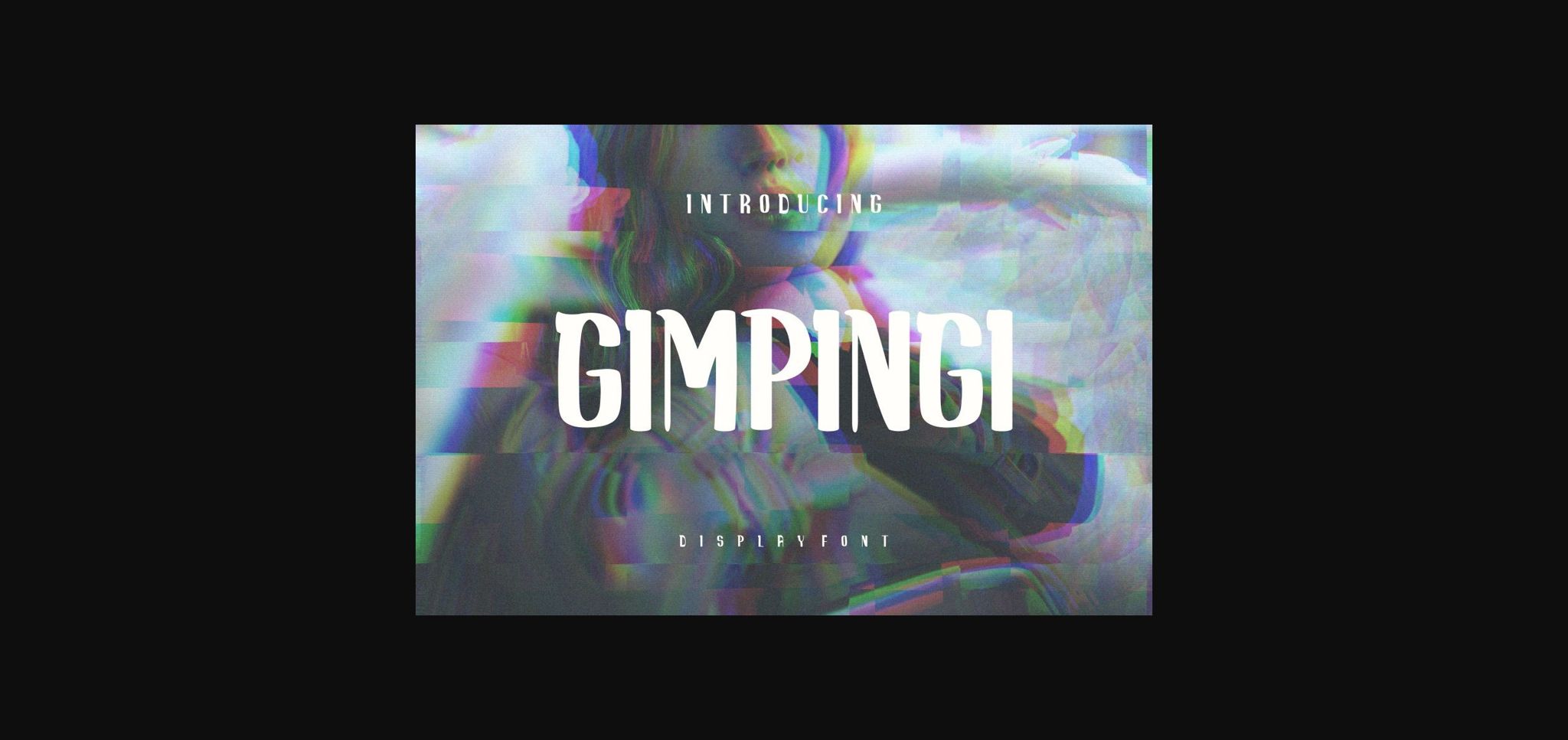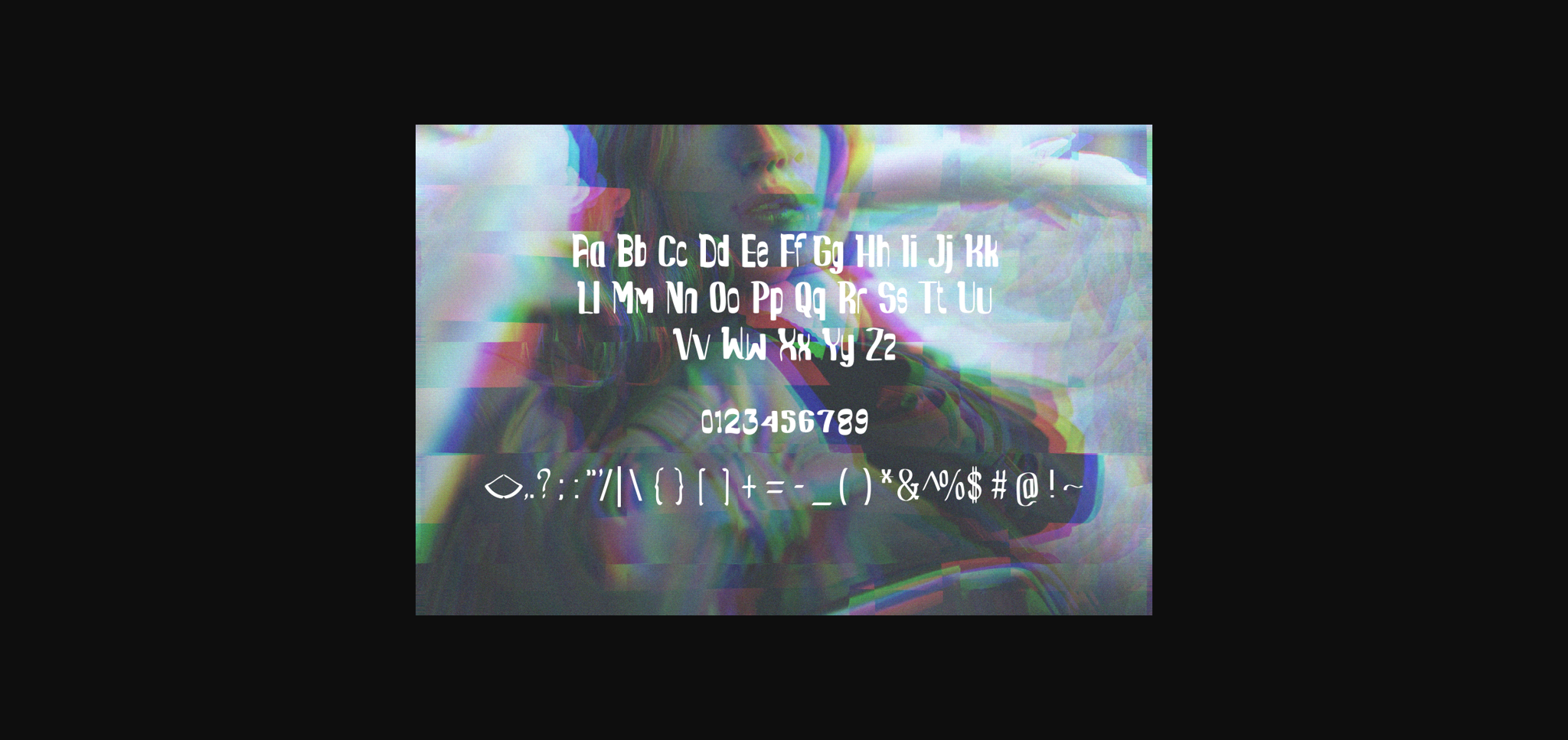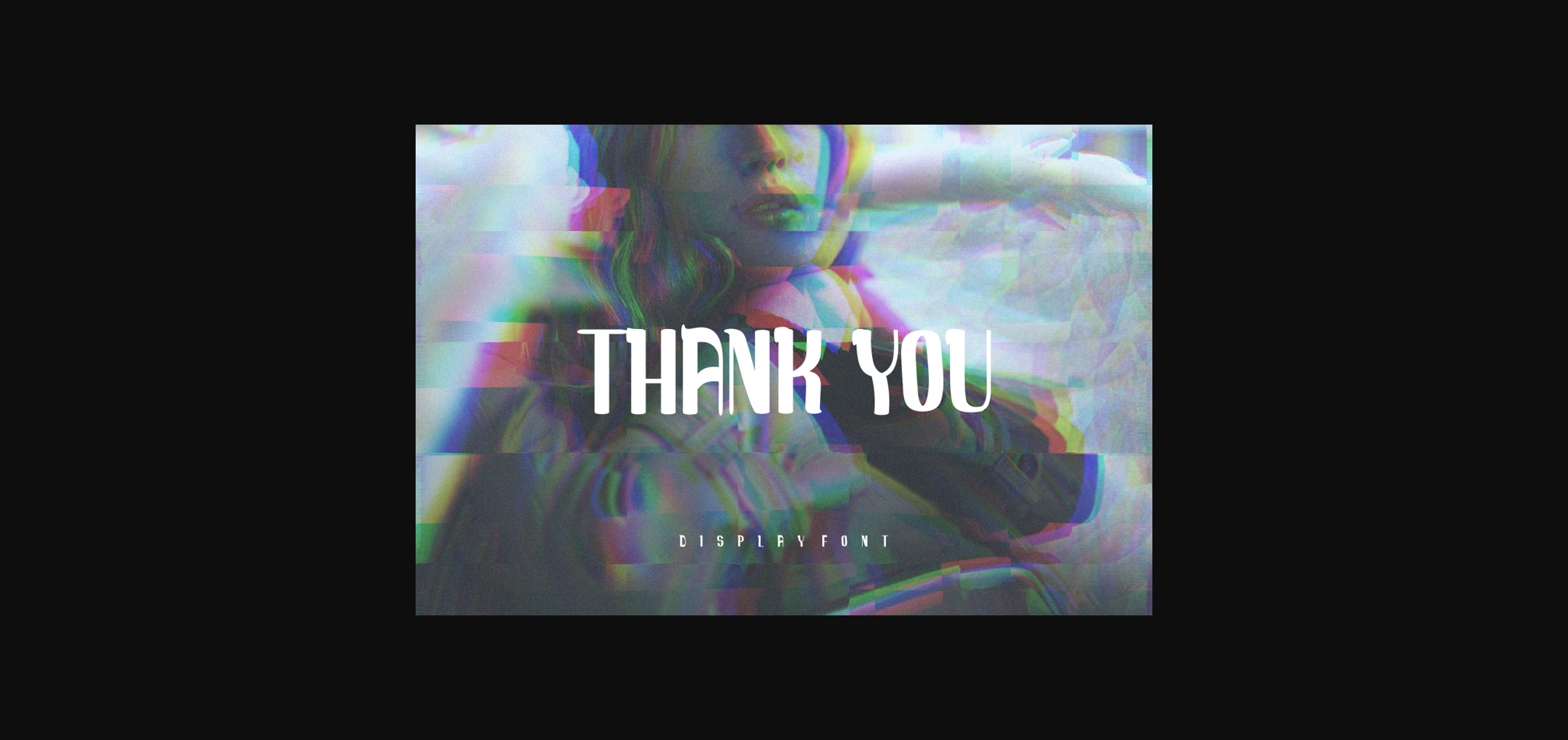
HomeSans Serif FontsGimpingi Font Sans Serif Fonts Gimpingi Font FacebookXPinterestWhatsApp 1 of 5 ... Gimpingi Font Poster 2... Gimpingi Font Poster 3... Gimpingi Font Poster 4... Gimpingi Font Poster 5... About Gimpingi Font Gimpingi is a cool and trendy sans serif font. No matter the topic, this font will be an incredible asset to your fonts’ library, as it has the potential to elevate any creation. DOWNLOAD NOW People also explored Star Hill Font Hanging Font Clownsy Shock Font Summer Christmas Font Solid Black Bella Canvas 8413 Flat Lay Handcraft Font Queer Marimba Font Alishba Font 503 0 TagsGimpingi Font Previous articleMucay FontNext articleRonson Font LEAVE A REPLY Cancel reply Comment: Please enter your comment! Name:* Please enter your name here Email:* You have entered an incorrect email address! Please enter your email address here Website: Save my name, email, and website in this browser for the next time I comment. Personal Use Free Joystix Monospace Personal Use Free Read more about this font Rosebirth Personal Use Free Read more about this font Heart Personal Use Free Read more about this font GoodFay Personal Use Free Read more about this font BLOG Using Fonts in Digital Marketing: Tips to Strengthen Your Brand Identity In the realm of digital marketing, every visual element plays a crucial role in shaping a brand's identity, and fonts are no exception. The... Free vs Paid Fonts: Why Investing in Premium Fonts Is Worth It Elegant Wedding Invitation Fonts – Handwritten & Script Fonts Where to Buy American Fonts Online in 2024